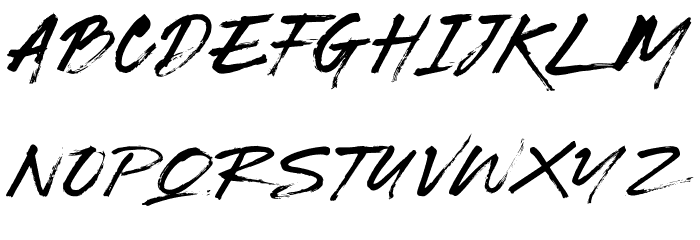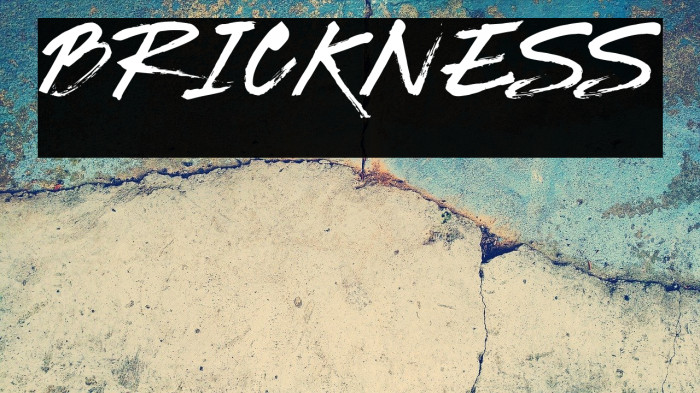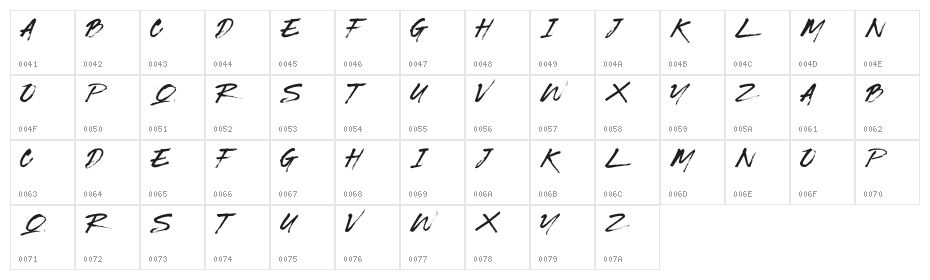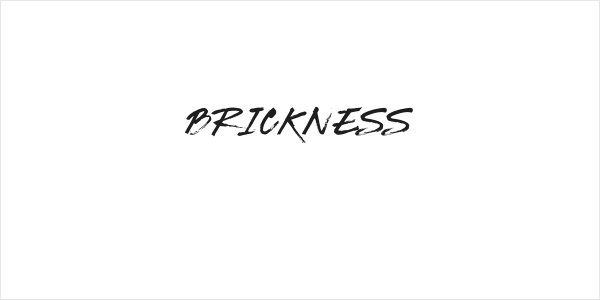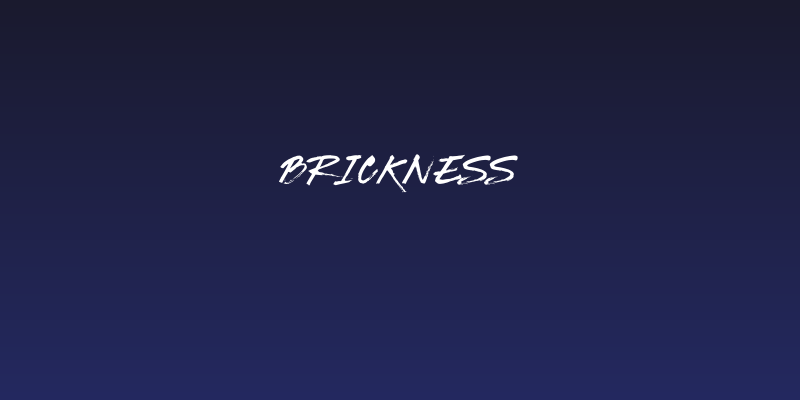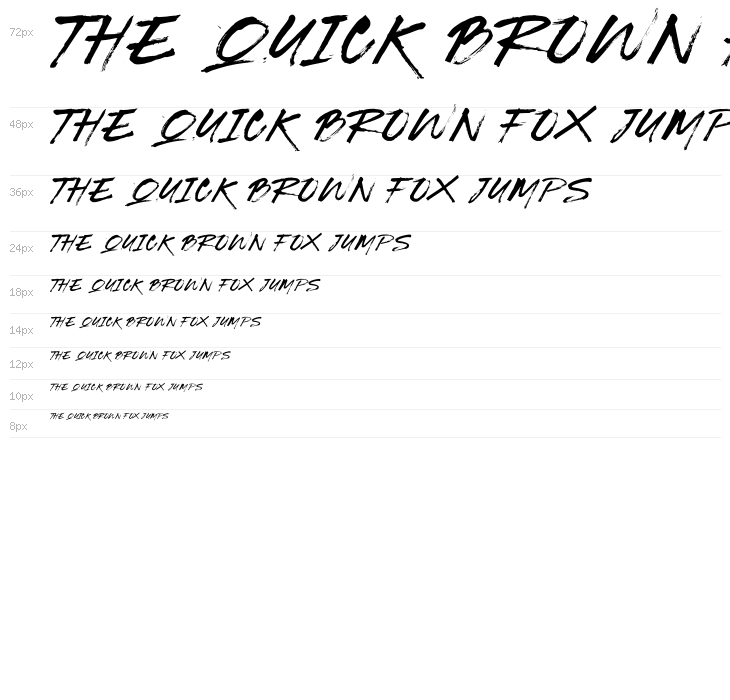
BRICKNESS Font
This font exudes a dynamic and energetic style, characterized by its brush-like strokes and slightly irregular edges. The uppercase letters are bold and impactful, while the lowercase letters maintain a consistent flow, enhancing the handwritten aesthetic. The numbers and special characters follow the same expressive style, making them stand out. The overall appearance is both artistic and modern, suitable for projects that require a personal touch or a creative flair. Its unique design makes it ideal for branding, posters, and other visual media where a strong, artistic impression is desired.
A dynamic, brush-style font with bold, expressive strokes.
- Font: BRICKNESS
- Proposed Projects: Ideal for branding, posters, artistic projects, and any design requiring a bold, creative touch.
- Category: Handwritten
- Overall Style: Modern, Artistic